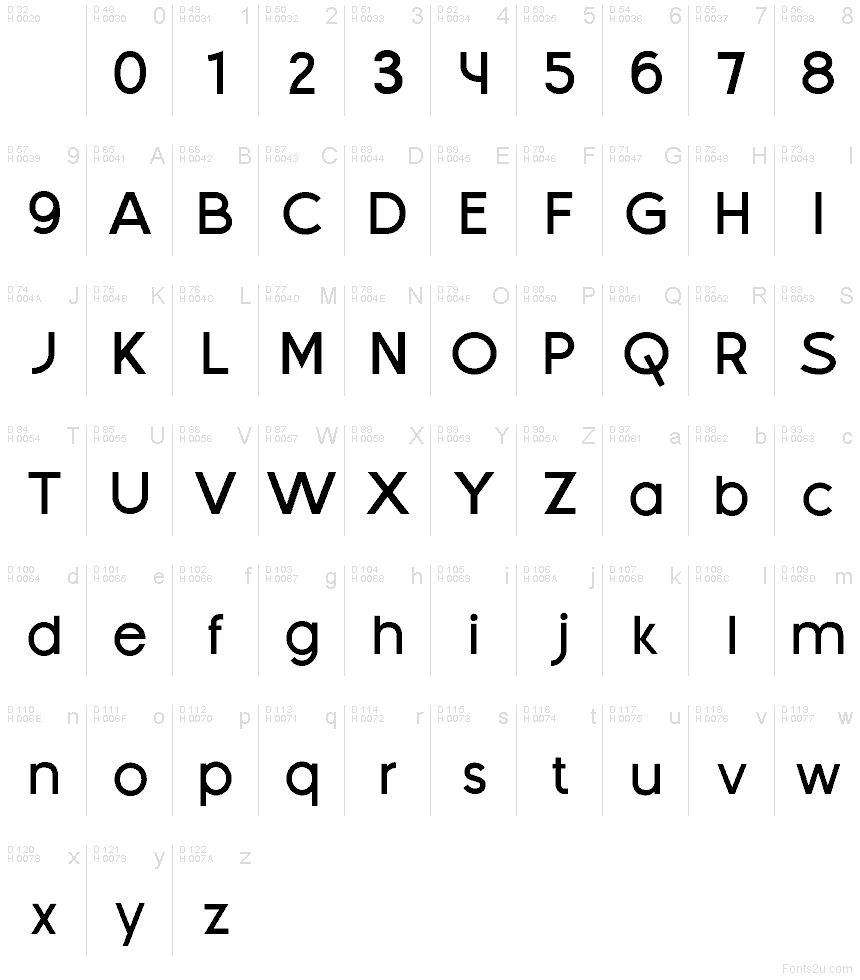
Destrubia Regular
Destrubia font by Tezar Tantular is a readable geometric sans-serif. It has modern elegance, clean presentation, and contemporary appeal with balanced letterforms and wide spacing. The group of letters looks uniform in every design while assuring effective communication and delivery of the necessary message.